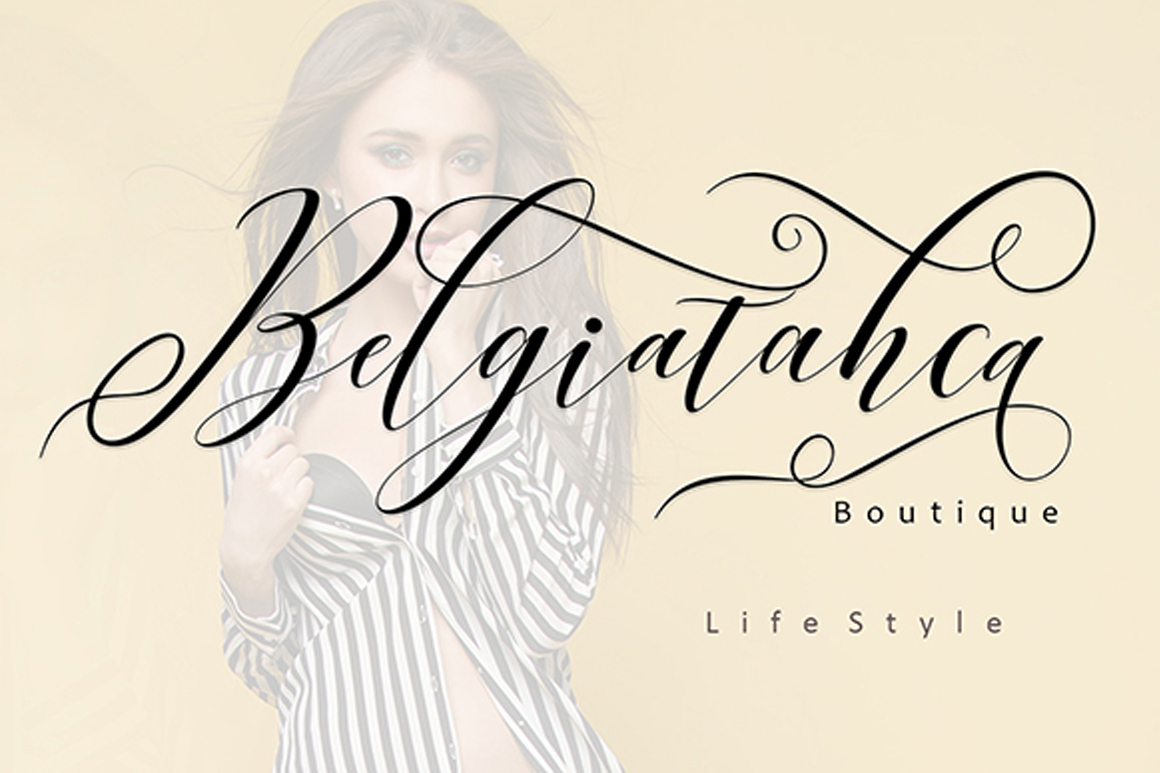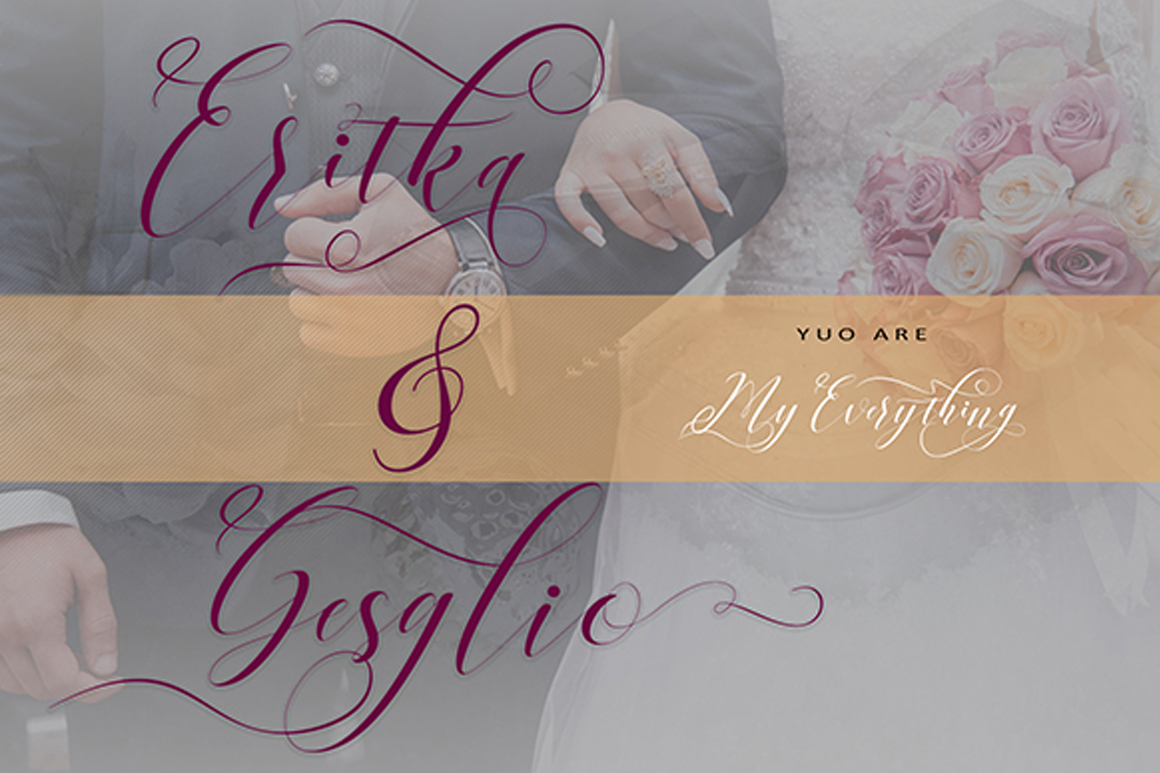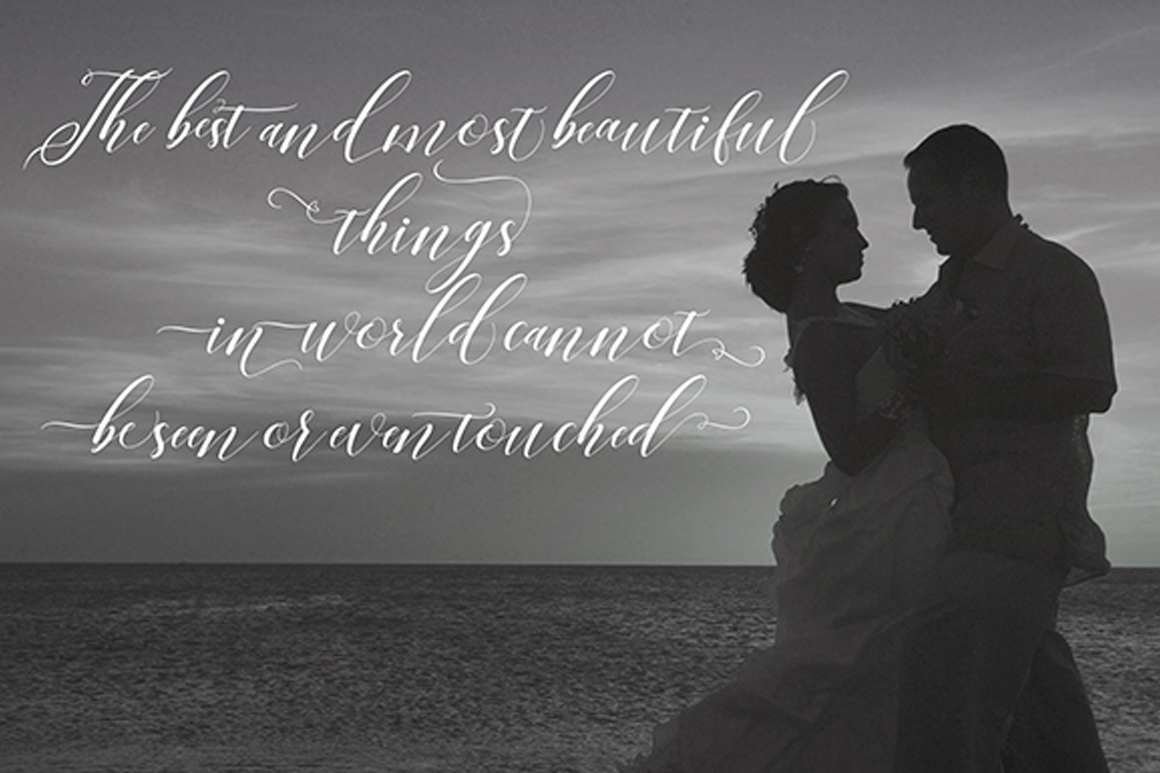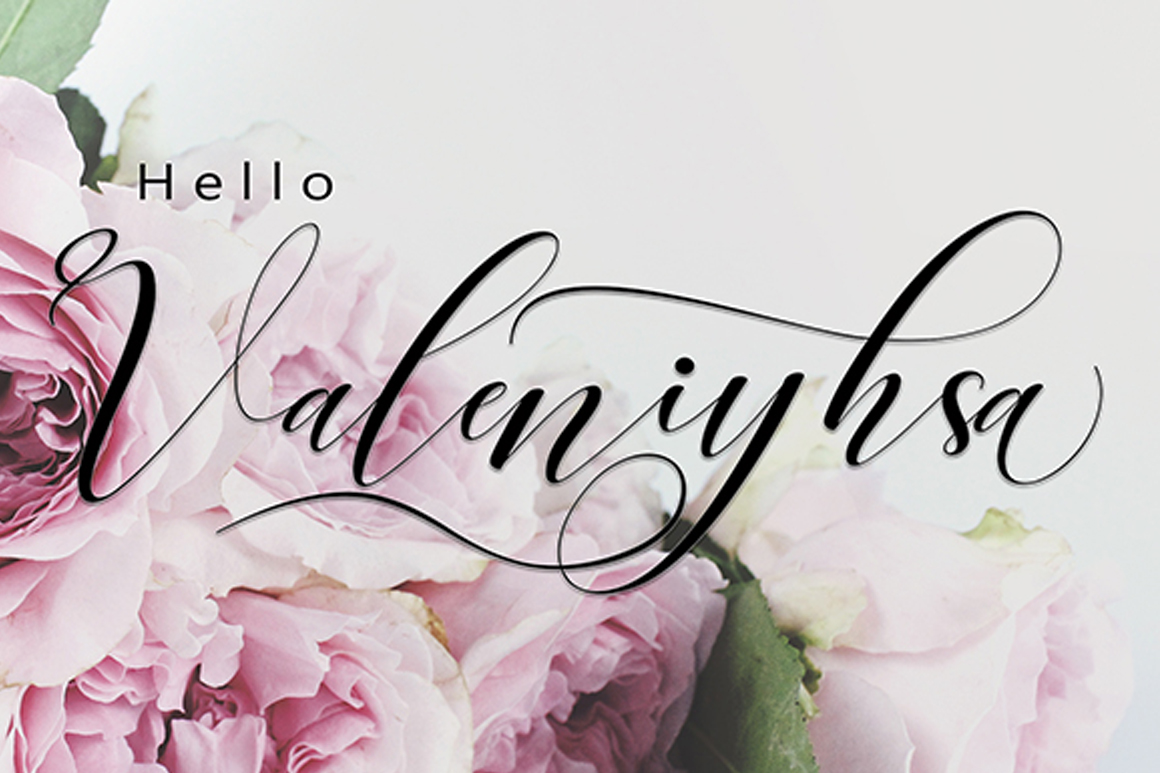
Introduction to Right Side Font
Right Side is a modern form of calligraphy, with a high contrast stroke exemplifying the ups and downs of each character.
Flourished and romantic, Right Side is a great font to enhance the most special of your projects .